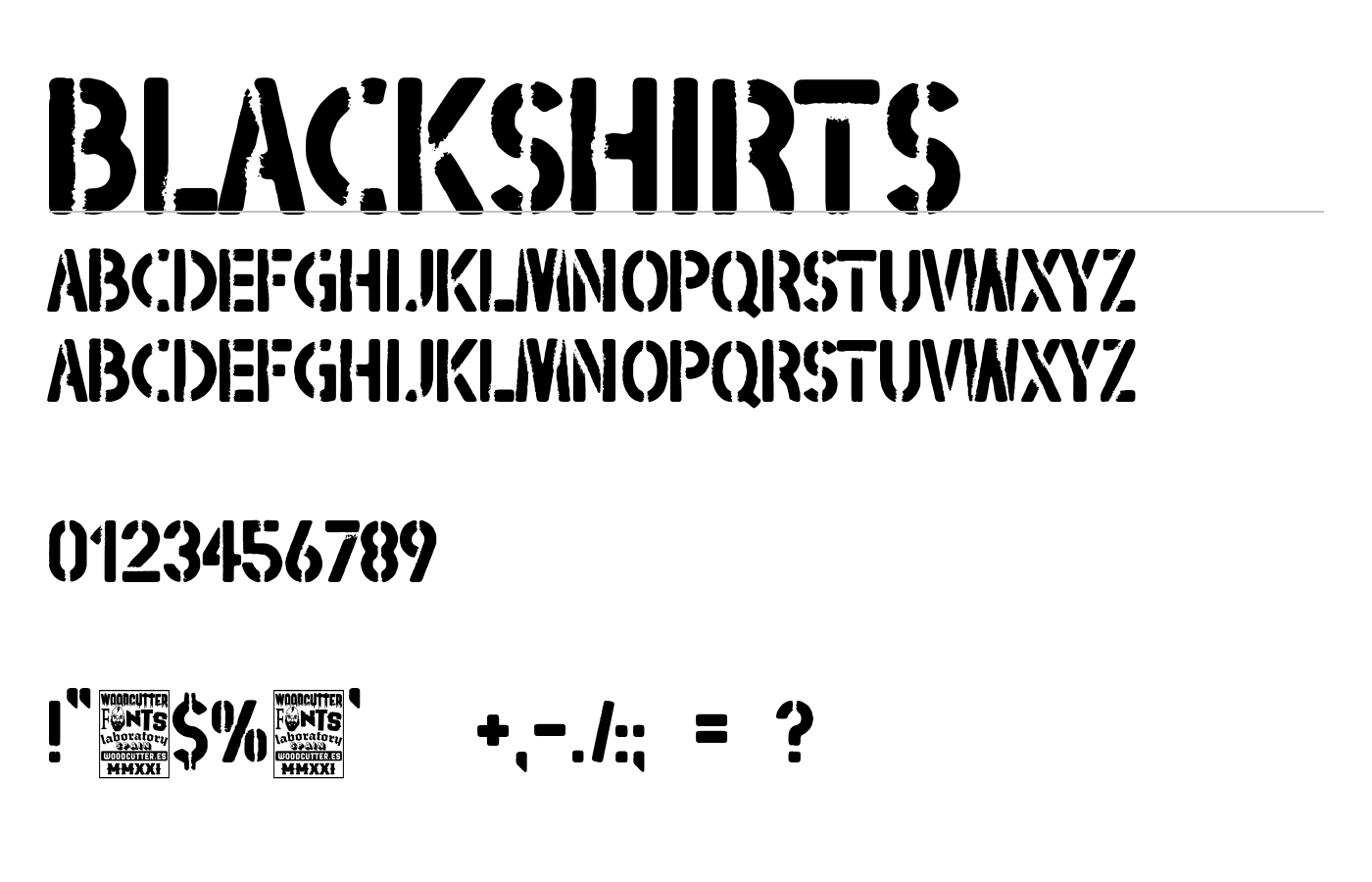
Blackshirts is a bold, condensed stencil-style font with a strong industrial and military vibe. Its heavy weight and rough, distressed edges give it a rugged, utilitarian feel, making it ideal for impactful headlines, posters, and branding that need a tough, authoritative look. This font works well in designs that seek to convey strength, resilience, and a vintage yet aggressive style.